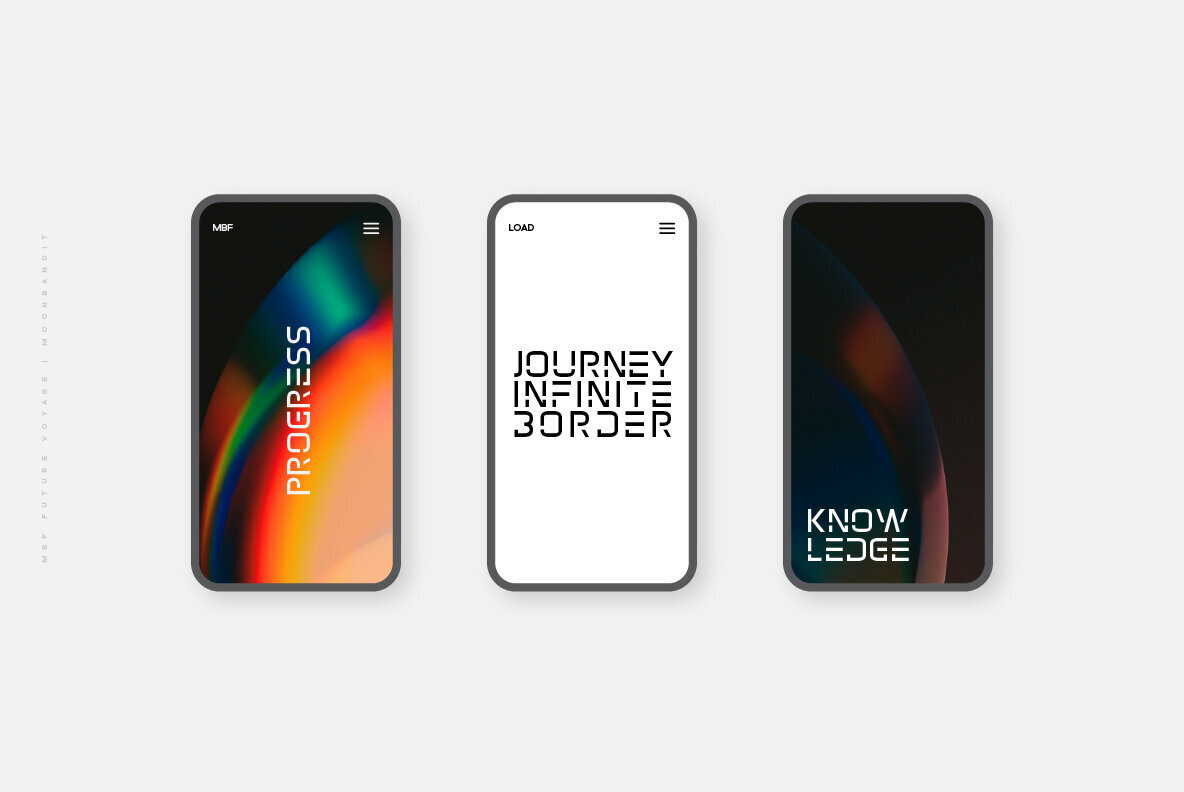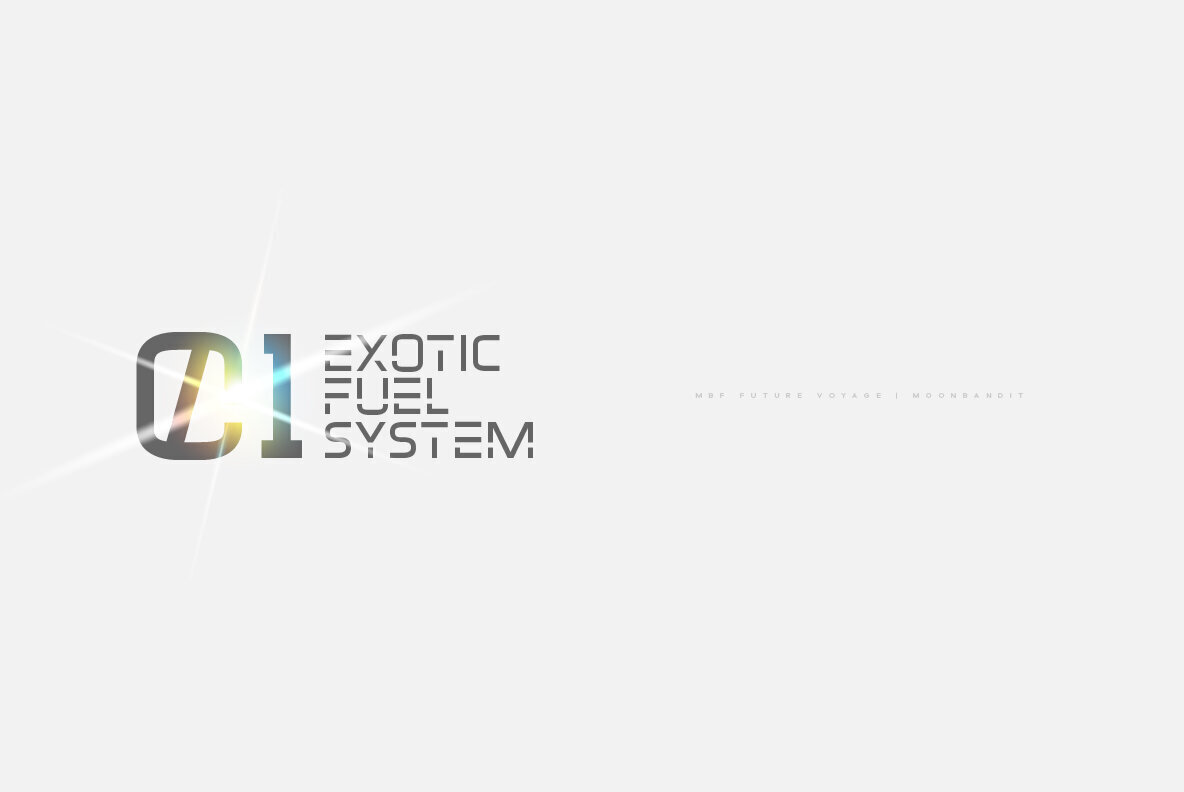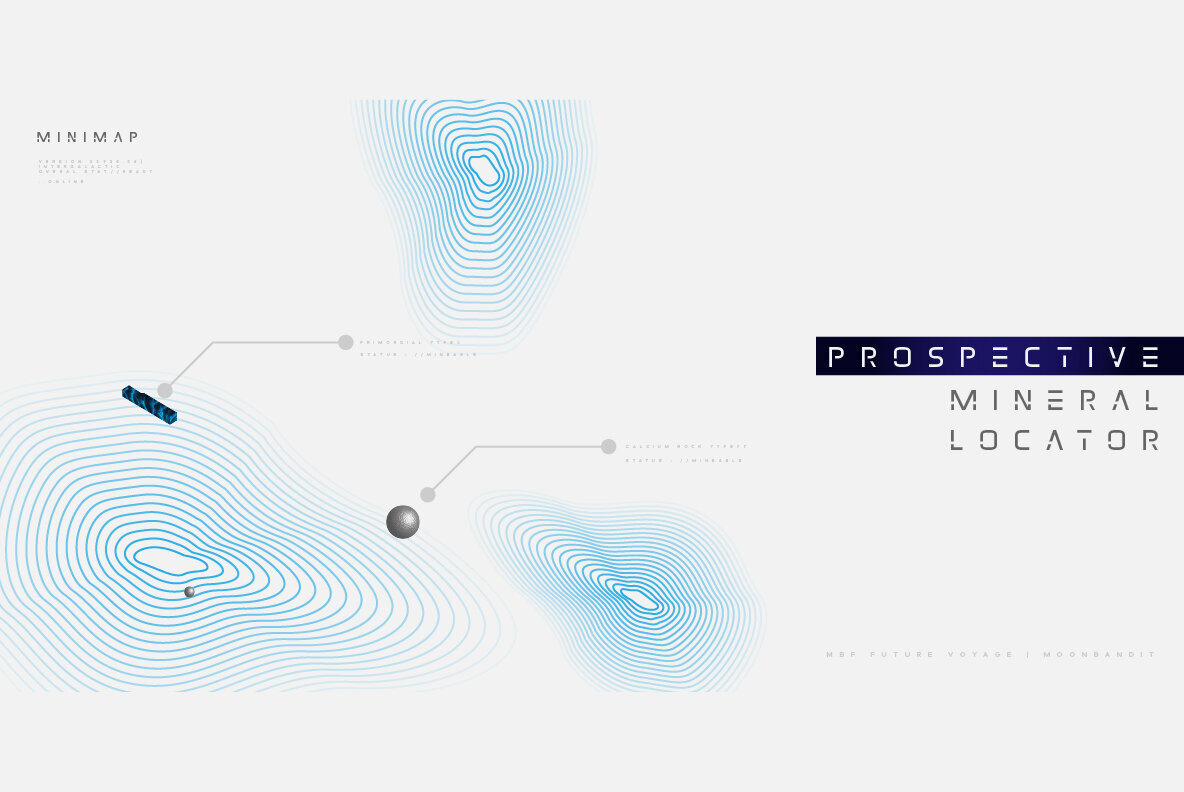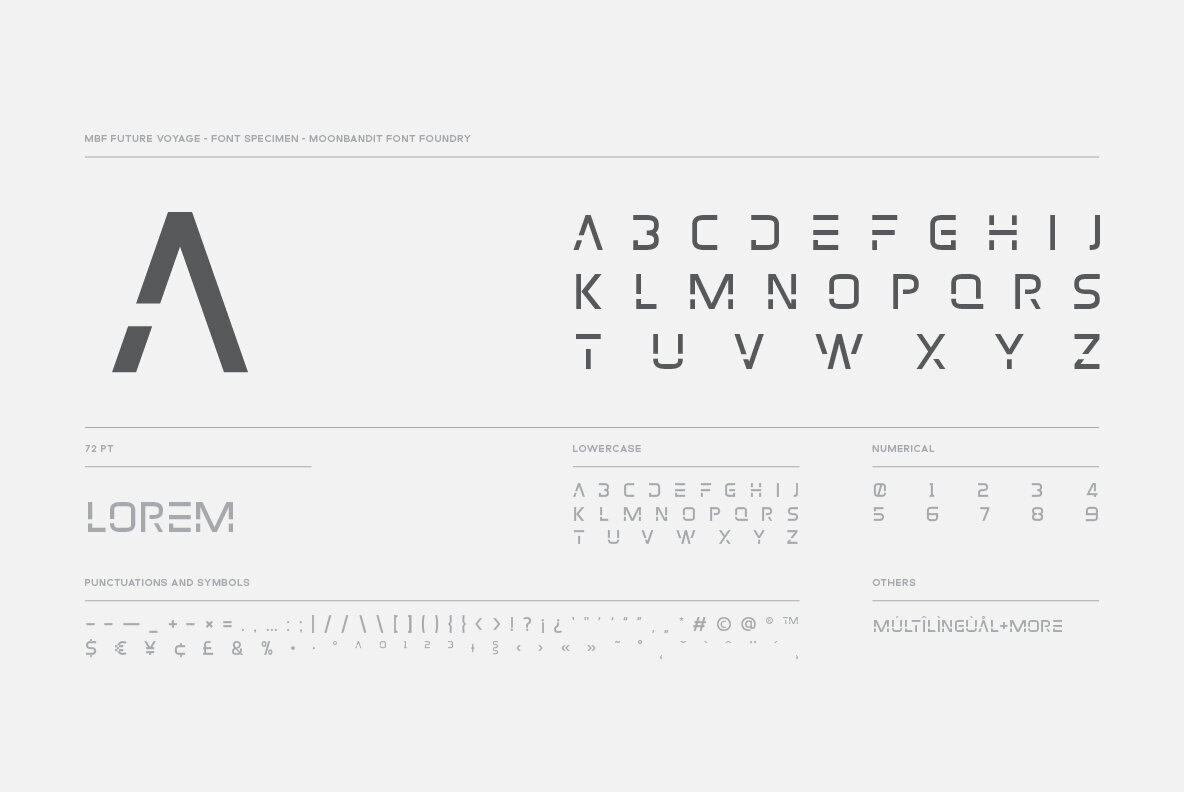
MBF Future Voyage Font
MBF Future Voyage
Future Voyage, a clean modern futuristic sans serif display font. This typeface is perfect for minimalist scifi theme. Perfect usage as logo, poster, display, headline, t-shirt design and many more.